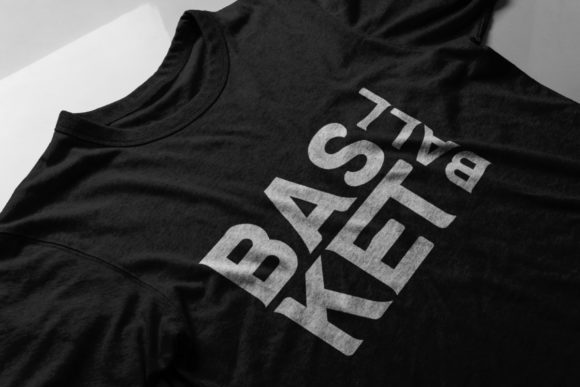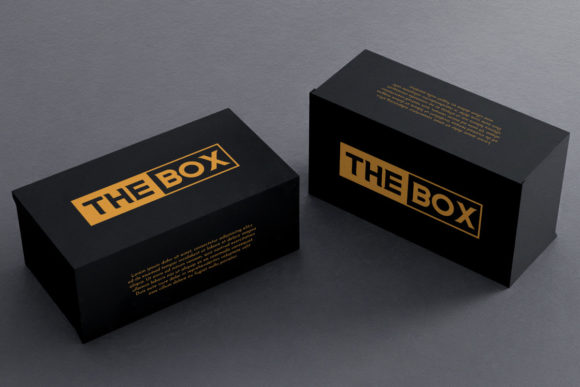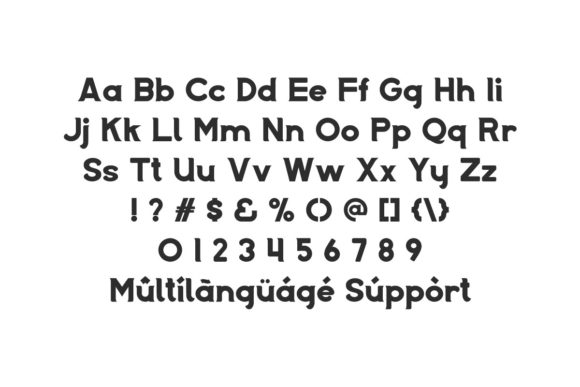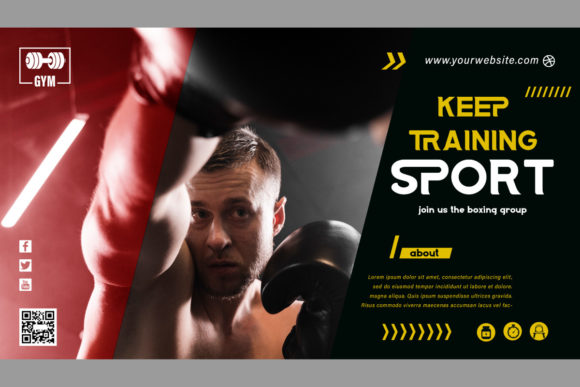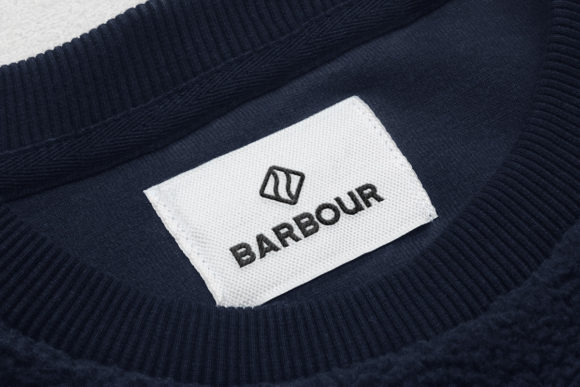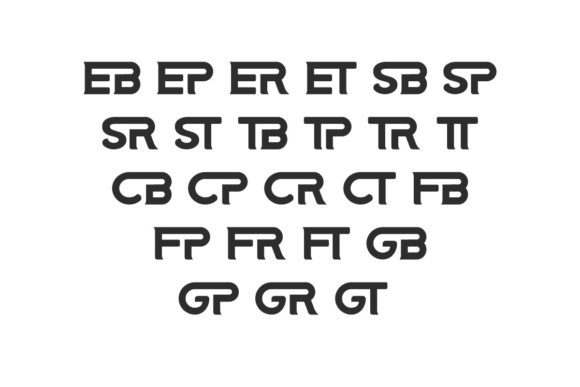
The Cosmic Design That Will Launch Your Creativity
Have you ever sat at your desk, staring at a blank page, waiting for that elusive spark of inspiration to strike? That’s where the magic happens – in those moments of creative uncertainty. As designers, we know that the right font can be the key to unlocking our ideas and bringing them to life. That’s where Astrojets Font comes in – a bold sans serif font designed to propel your creative vision into the stratosphere.
Astrojets Font is more than just a typeface; it’s a versatile tool for branding, logos, and visual identity. With its sleek, modern design, it’s perfect for a wide range of industries, from automotive and crypto to web development and gaming. Whether you’re a seasoned designer or just starting out, Astrojets Font is a valuable addition to your toolkit – and a true game-changer for any project.
Astrojets Font Key Features
- Font Family: Astrojets is a unique, modern sans-serif font designed for use in various digital applications.
- Unique Characteristics: Astrojets Font features a distinctive, futuristic aesthetic with clean lines, geometric shapes, and a unique character set.
- Character Set: Astrojets Font includes a wide range of characters, including Latin, Cyrillic, and Greek alphabets, as well as various punctuation and symbol sets.
Astrojets Font Review
I recently had the chance to work with Astrojets Font, and I must say, it’s a unique addition to any design project. Here are my thoughts:
- Futuristic feel: Astrojets Font has a distinct, otherworldly quality that’s perfect for sci-fi or tech-related projects.
- Versatility: This font can be used for a wide range of applications, from headings to body text, and even for logos.
- Customization options: Astrojets Font offers various style and weight options, allowing designers to tailor the look to their specific needs.
- Readability: While Astrojets Font looks great on screen, it can be challenging to read at smaller font sizes or in low-light environments.
- Limited language support: I noticed that Astrojets Font doesn’t support all languages, which might be a concern for global design projects.
Overall, Astrojets Font is a solid choice for designers looking to add a touch of futurism to their projects. While it has some limitations, its unique style and customization options make it a valuable addition to any design arsenal.
Getting the Most Out of Astrojets Font
For best results, use Astrojets Font in conjunction with a bold or italic font for emphasis.
Astrojets Font is ideal for:
- Space-themed designs
- Science fiction projects
- High-tech branding